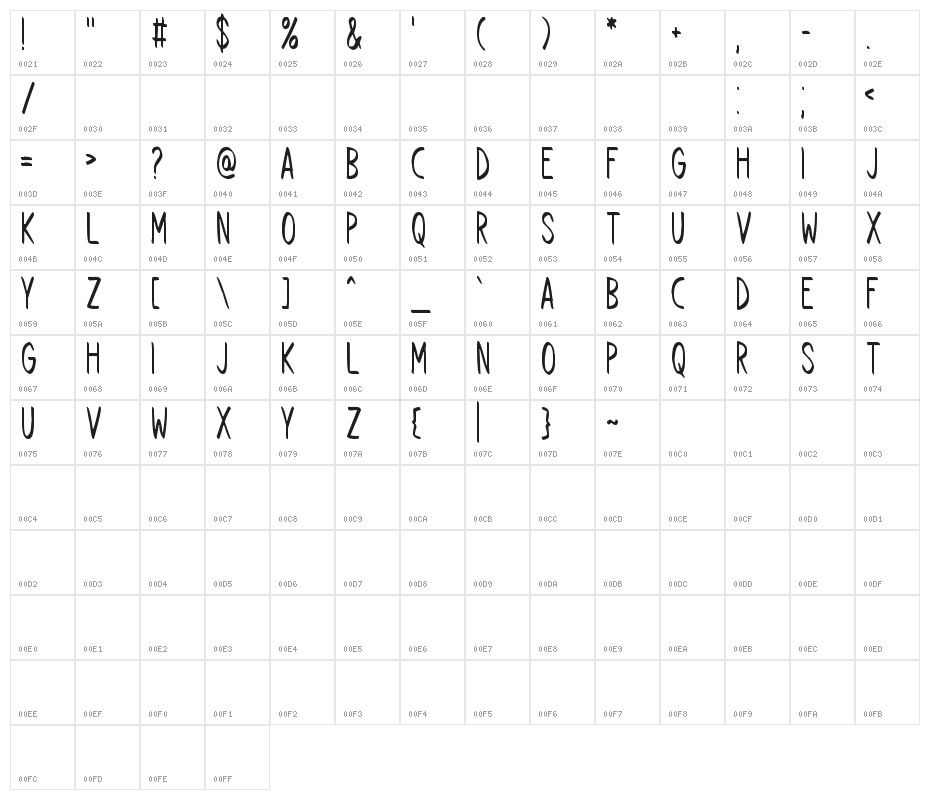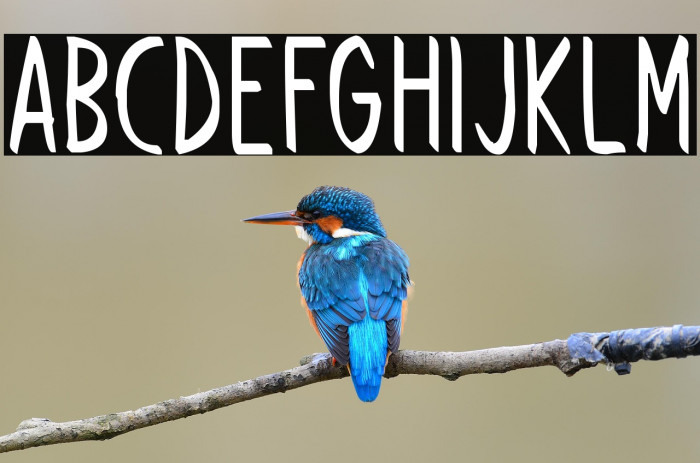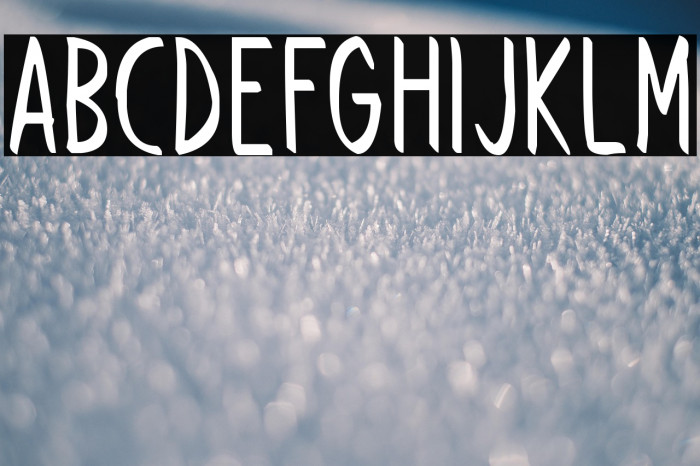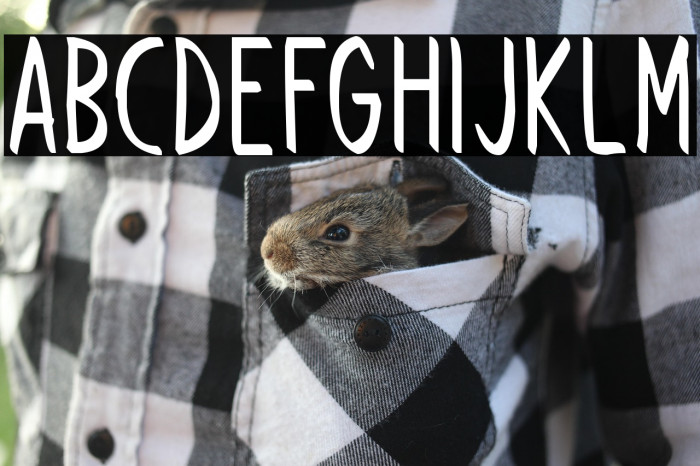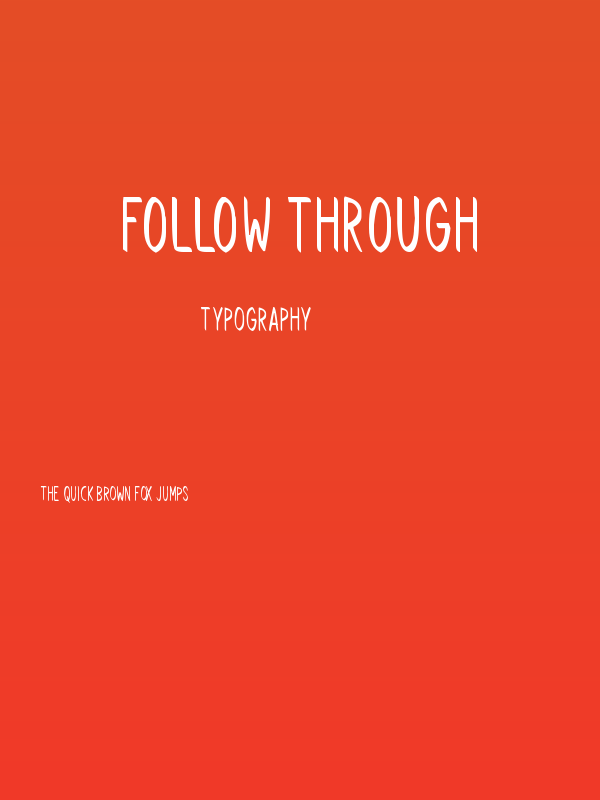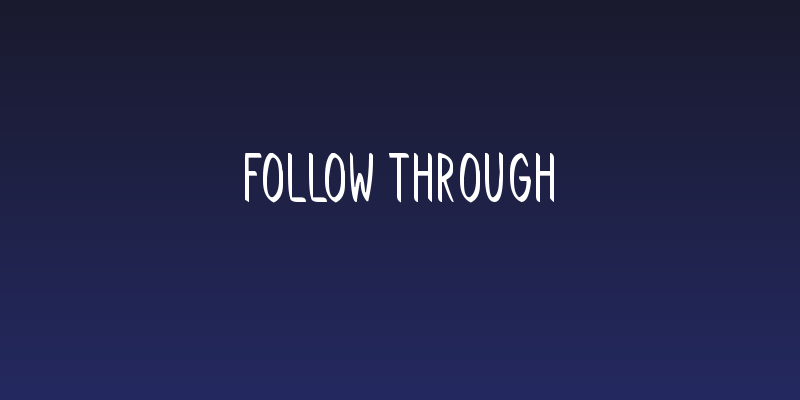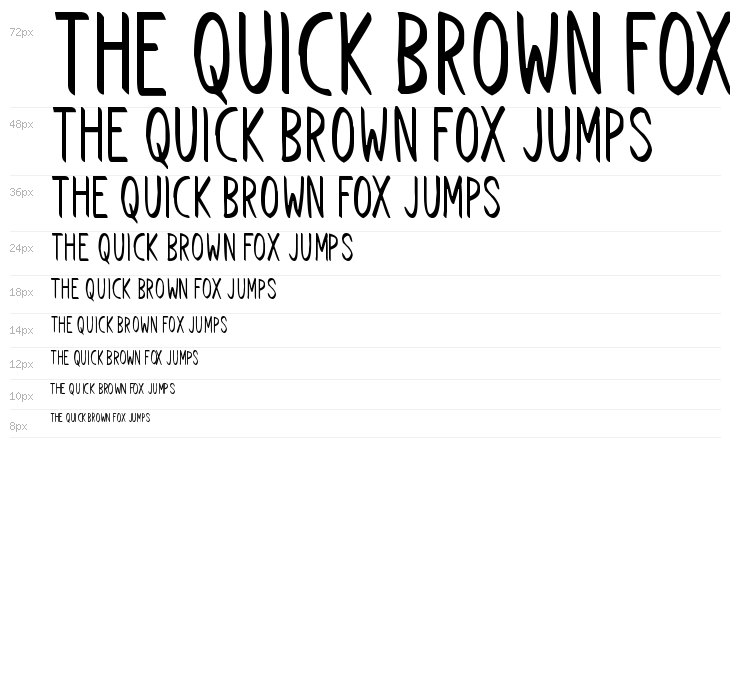
Follow Through Font
Follow Through Description
This font features a playful and informal style with a handwritten appearance. The letters are slightly irregular, giving it a casual and friendly vibe. The uppercase and lowercase characters maintain a consistent flow, with rounded edges and varying stroke widths that add to its charm. The numerals and special characters follow the same whimsical design, making it suitable for creative projects. Its unique style is perfect for adding a personal touch to any design, whether it's for digital or print media.
| Overall Style | Casual |
| Use Case | Headlines, Logos, Informal Text |
| Proposed Projects | Ideal for greeting cards, children's books, playful branding, and social media graphics. |